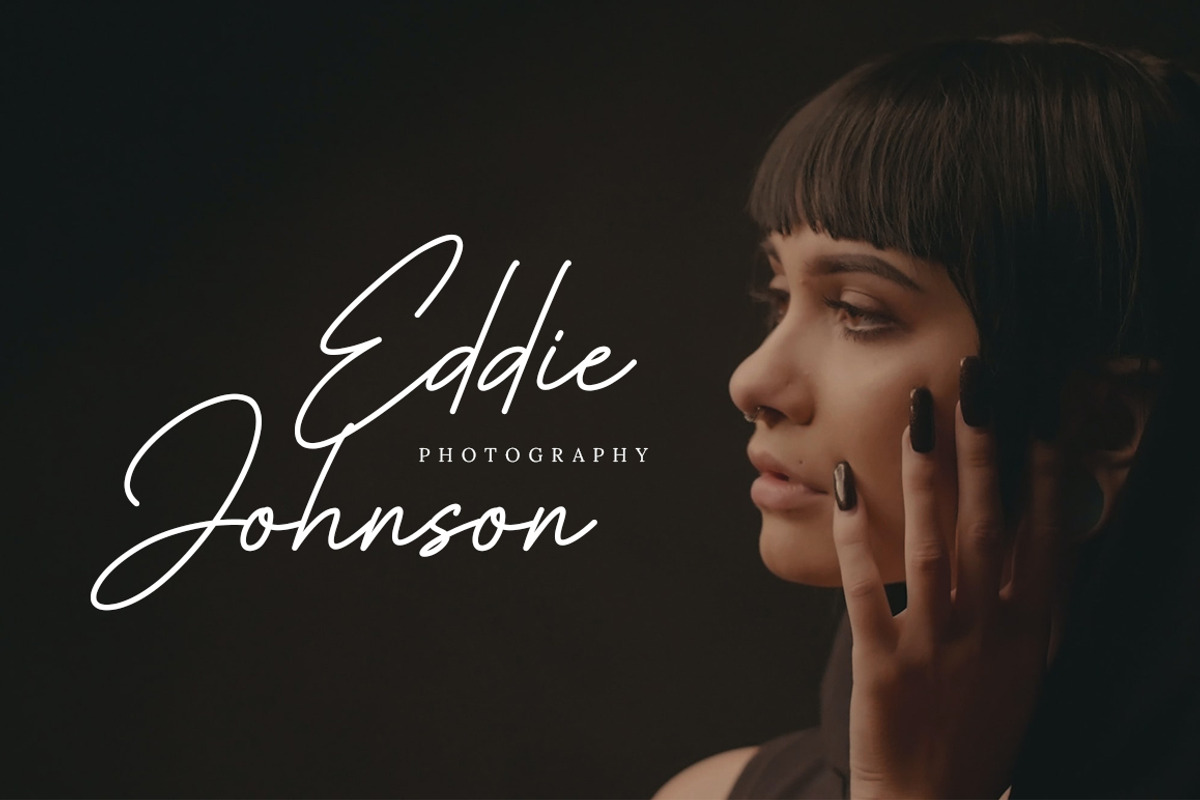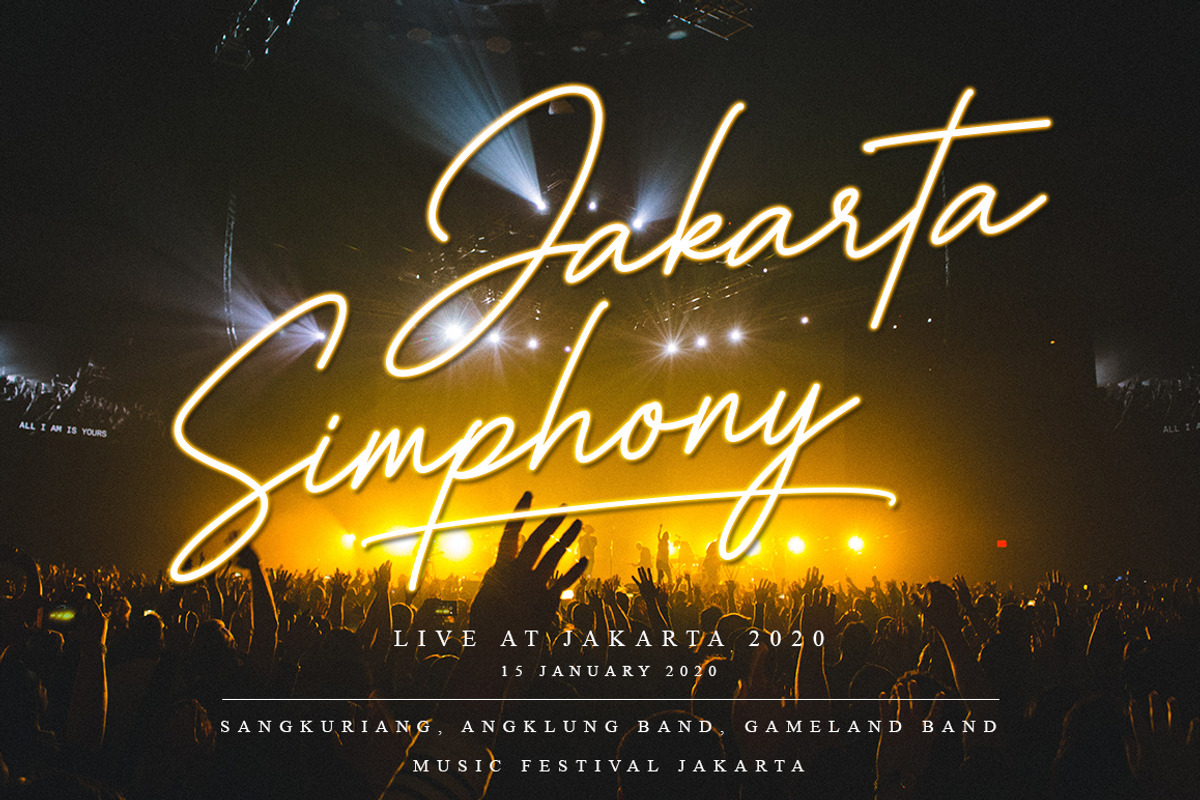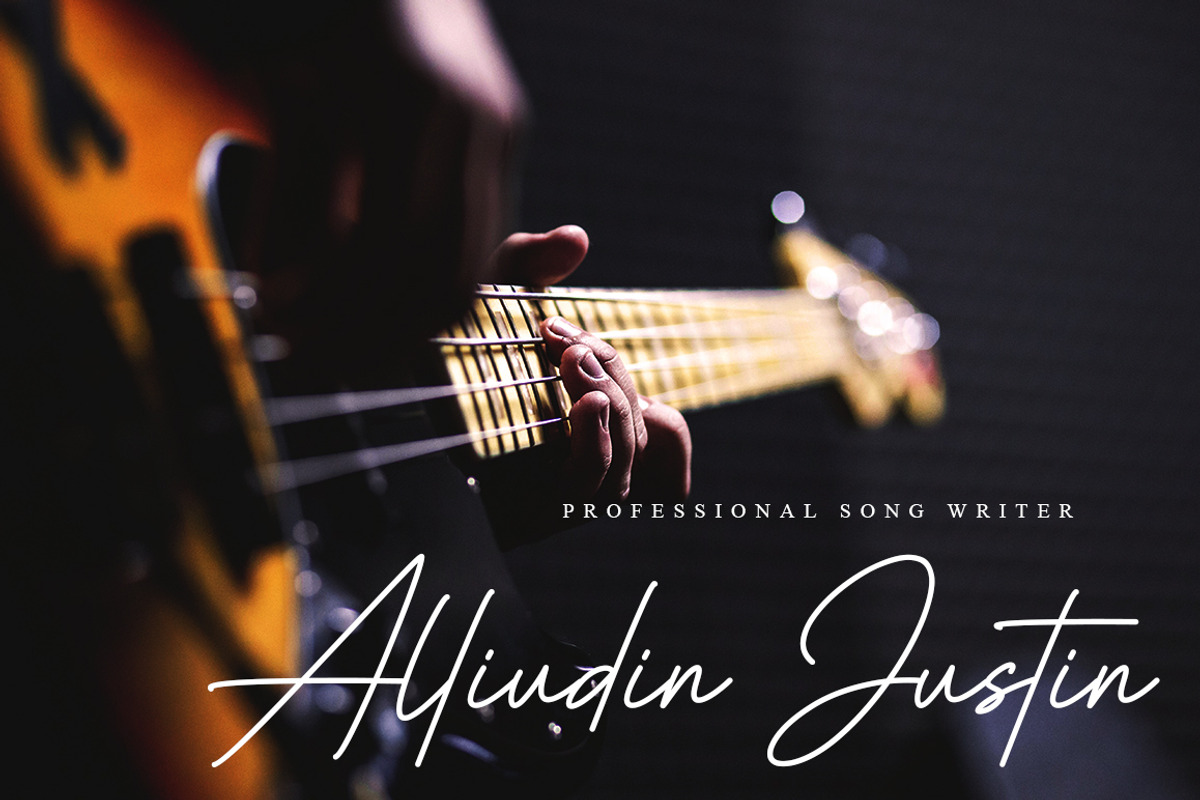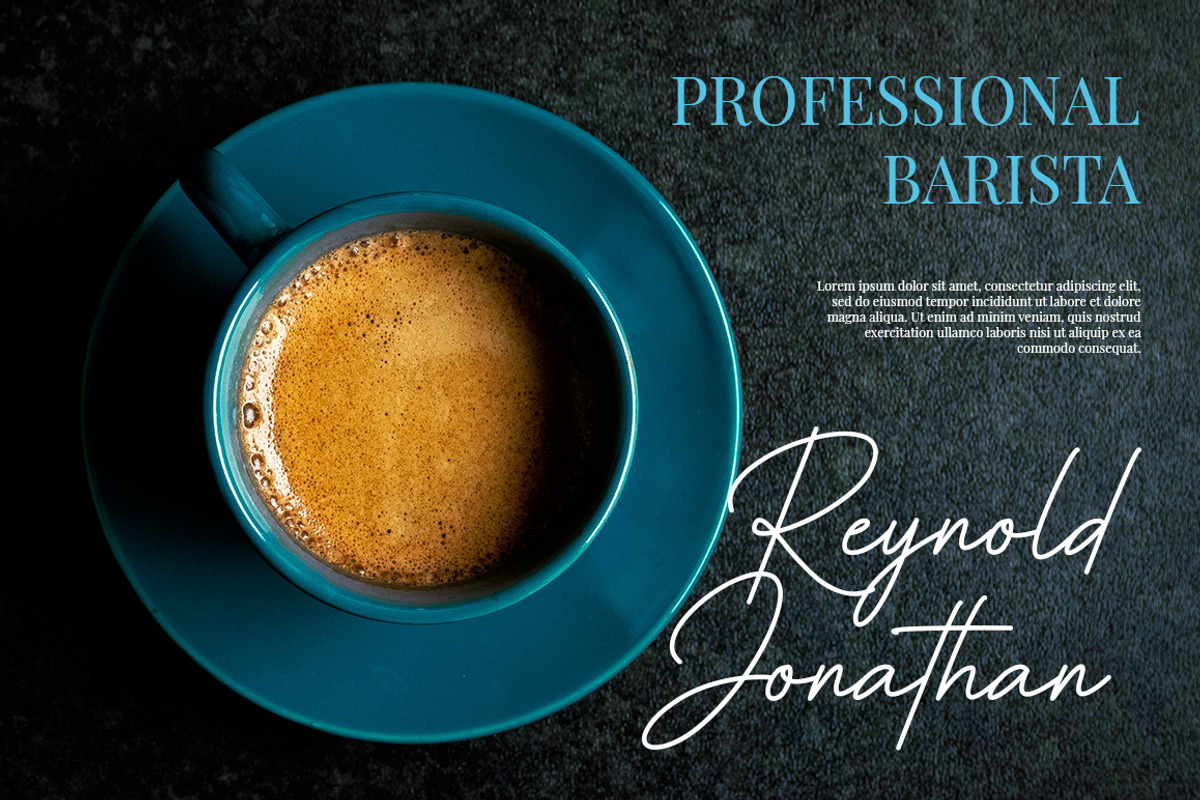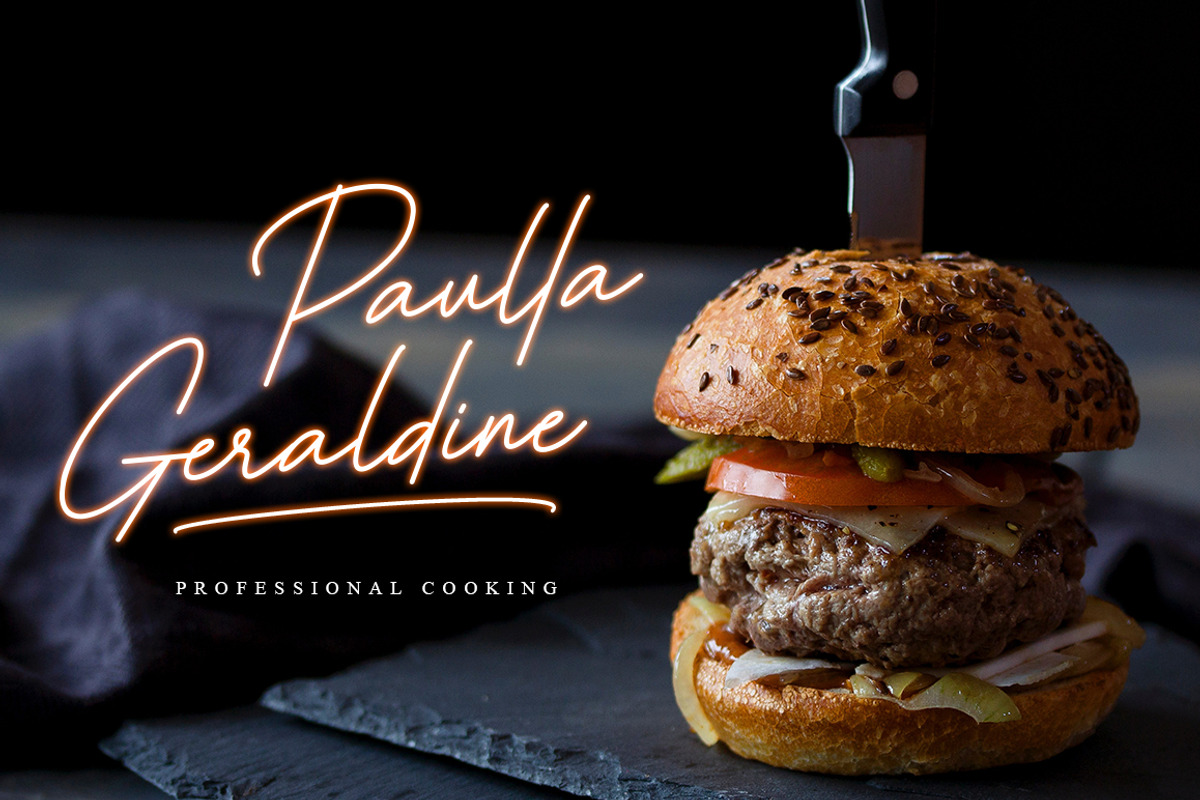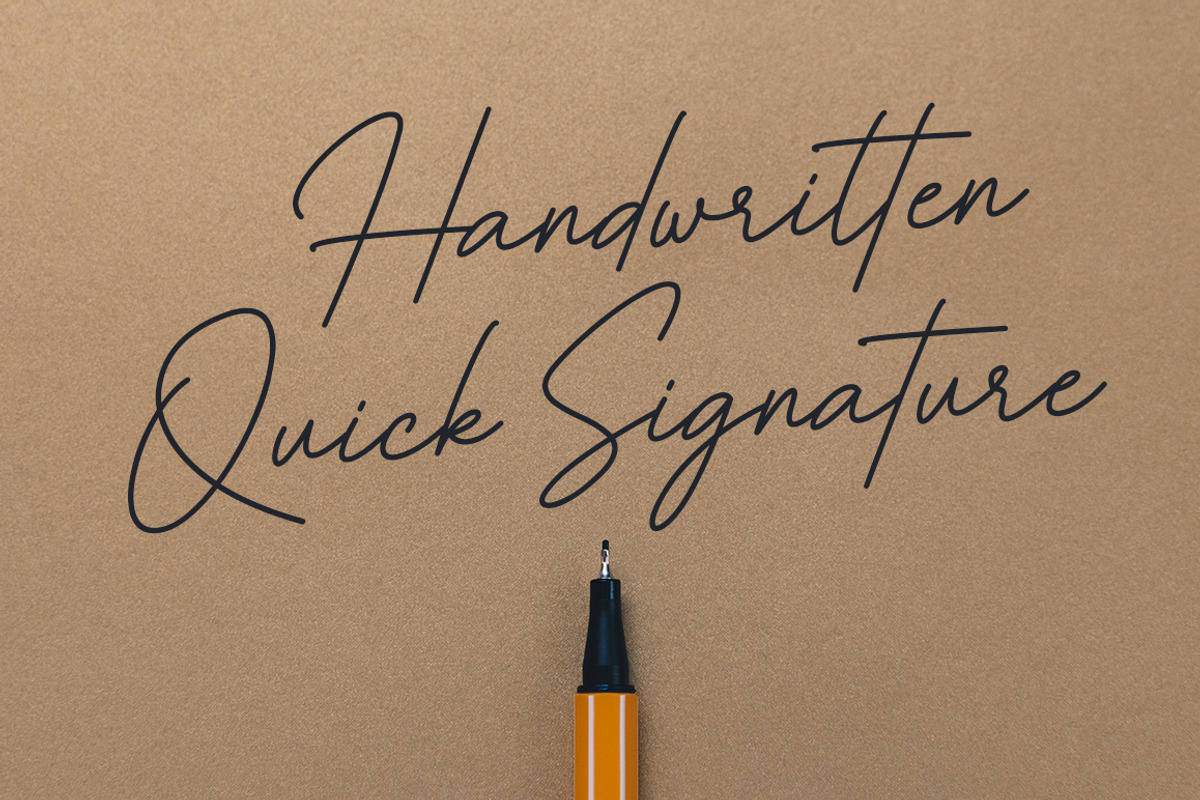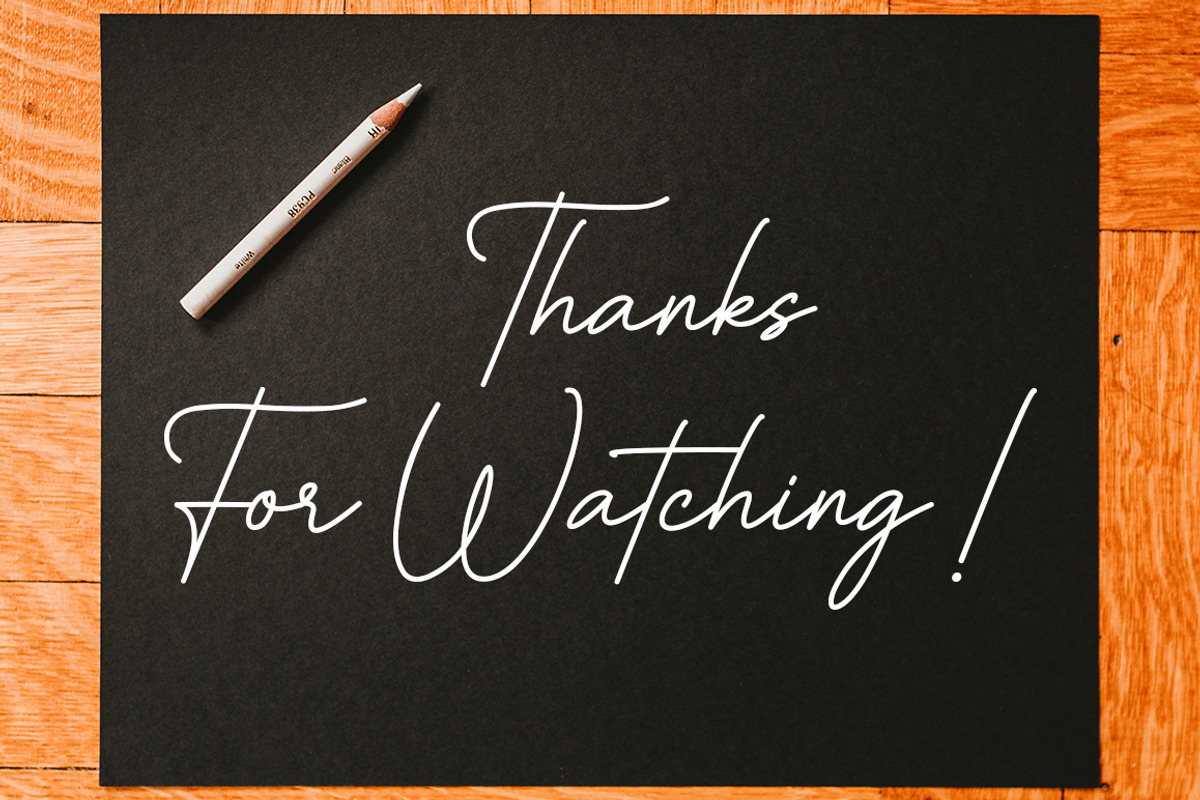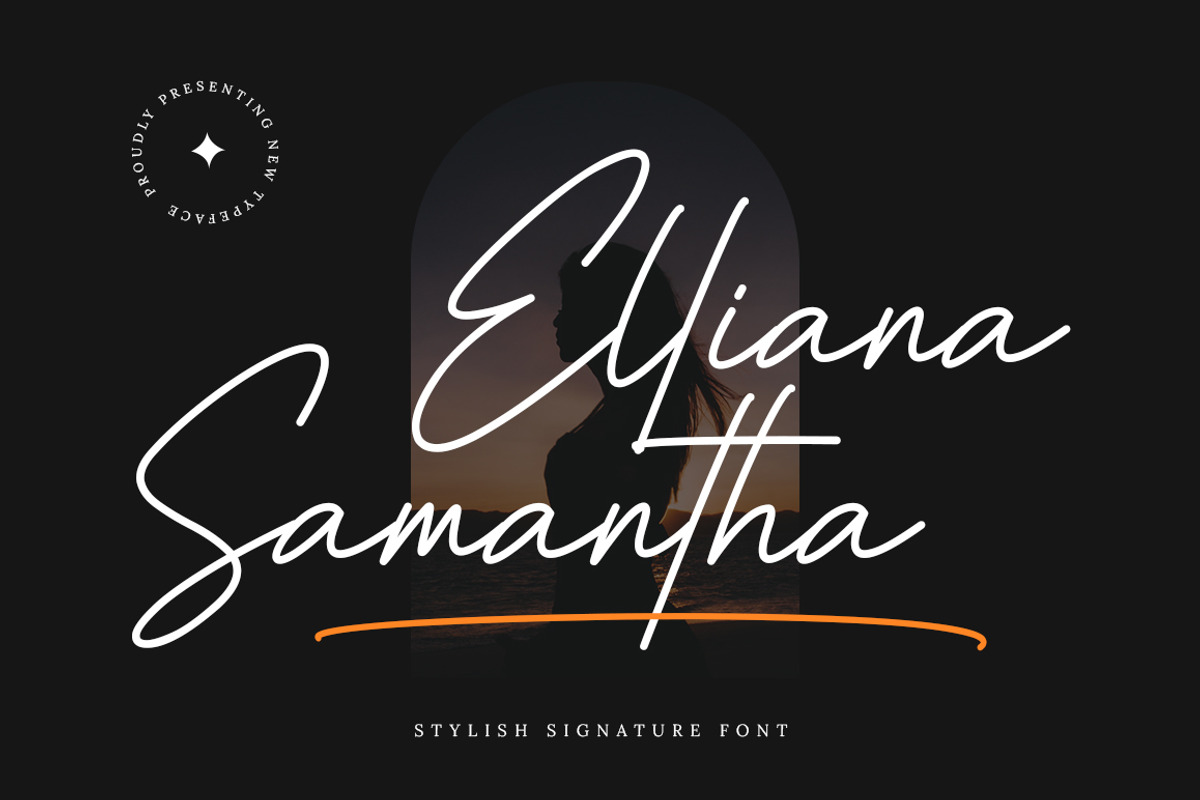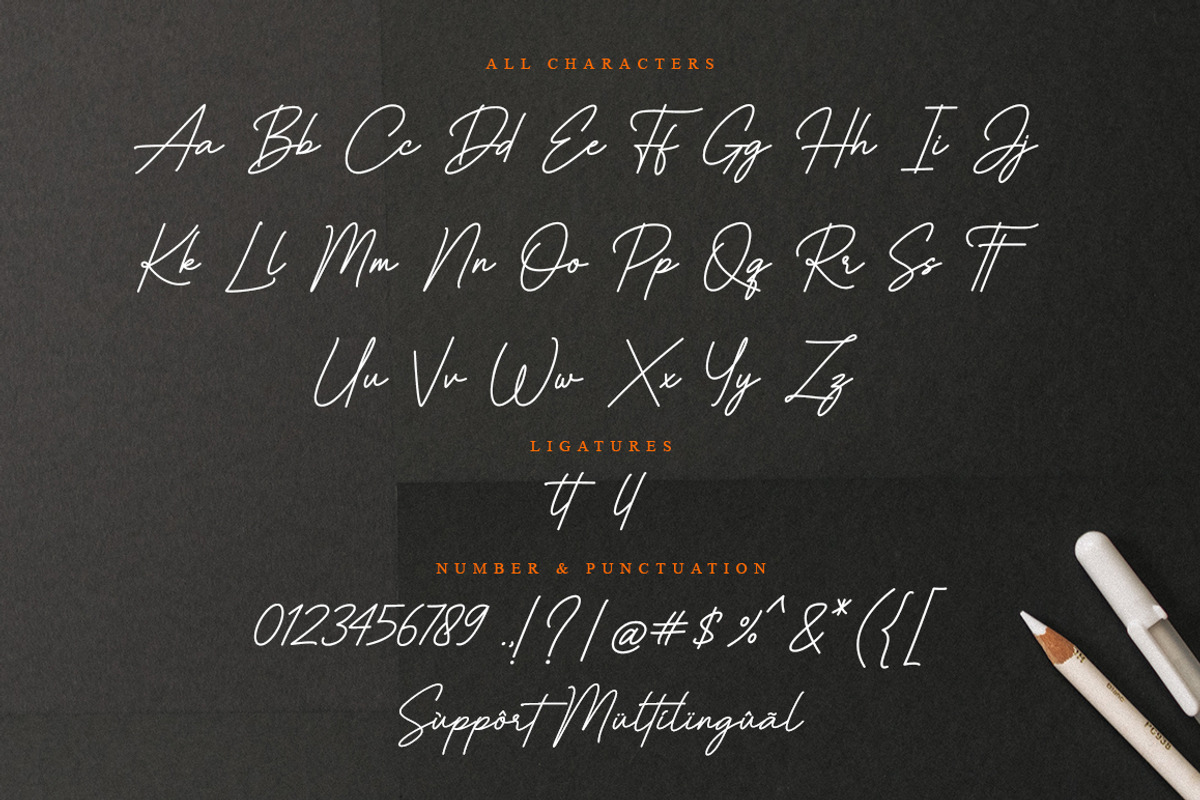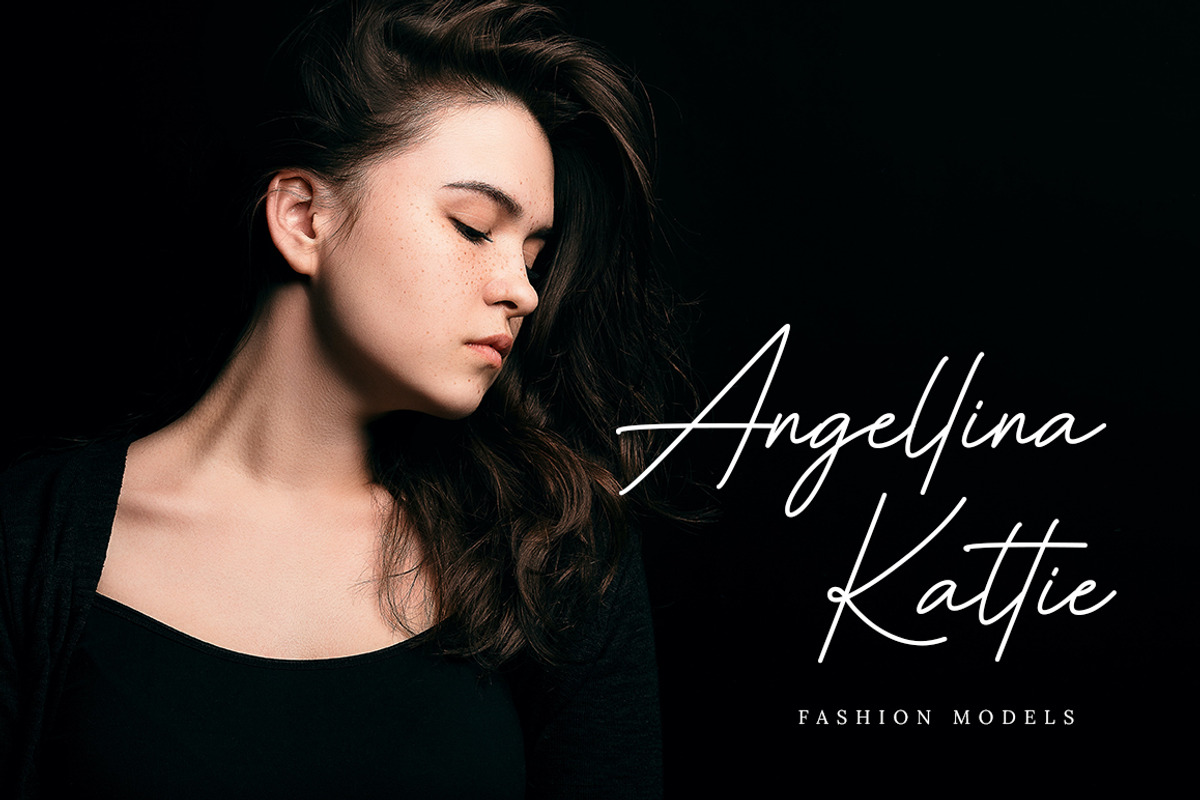
Elliana Samantha - Stylish Signature
Introducing Elliana Samantha - Stylish Signature Font
Elliana Samantha is a stunning signature font with a cool twist. Get inspired by its modern simplicity!
This font is suitable for use on business cards, weddings, t-shirt designs, logos, magazines, quotes, fashion, watermarks, invitations, signatures.
- Support Multilingual Languange
- Number & Punctuation